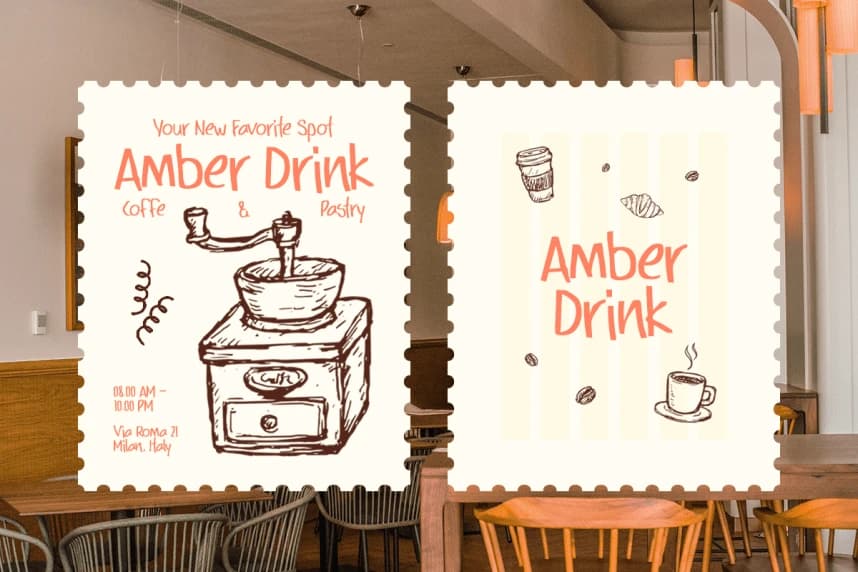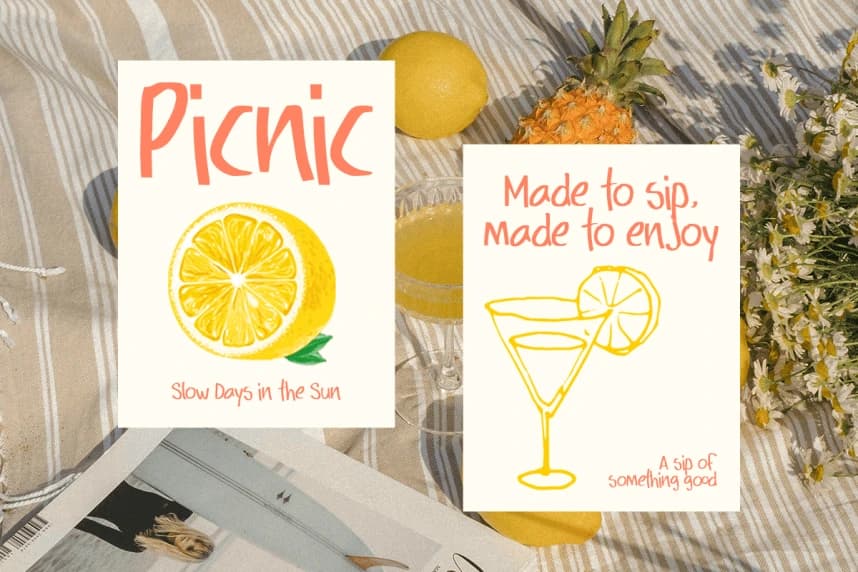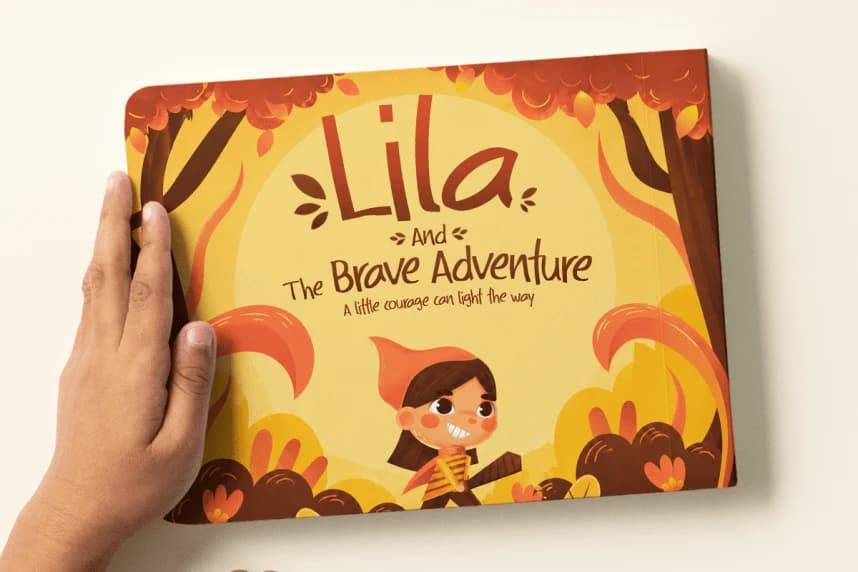
Markey Simple Handwritten Font
Markey Simple Handwritten Font is a simple handwritten font with a playful and natural feel. Designed with smooth strokes and an organic hand-drawn style, this font brings warmth, creativity, and a casual personality to any design project.